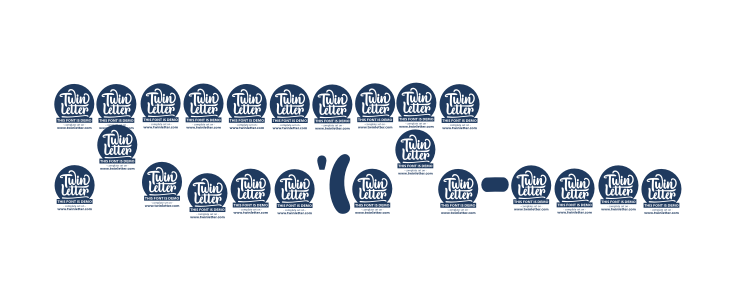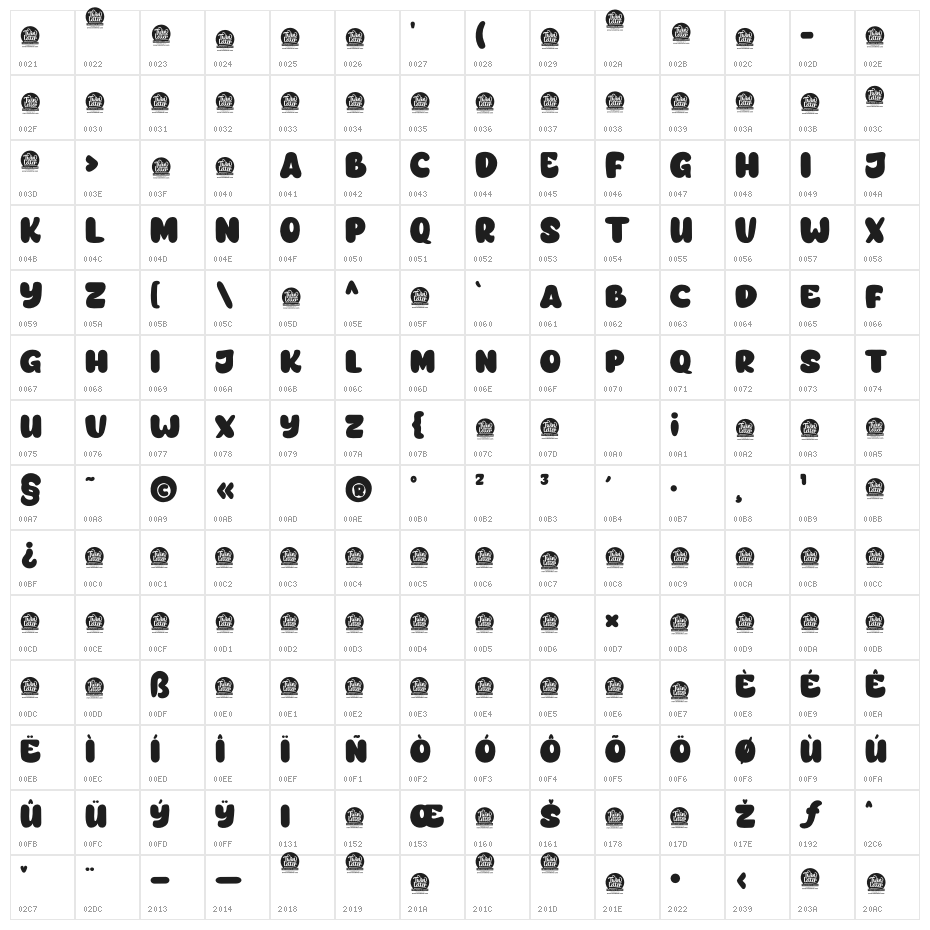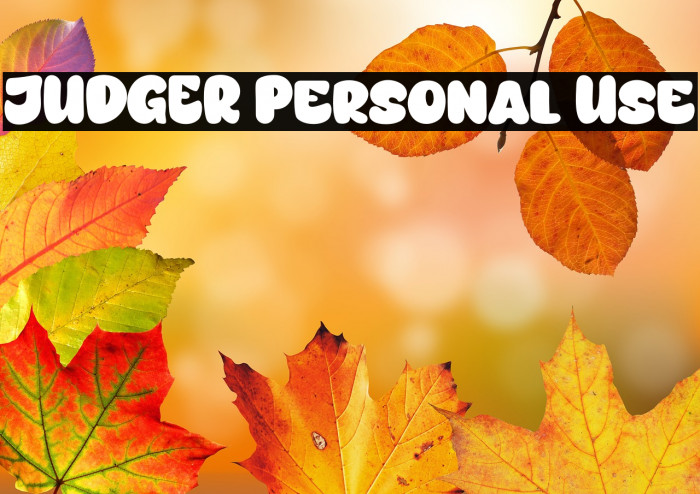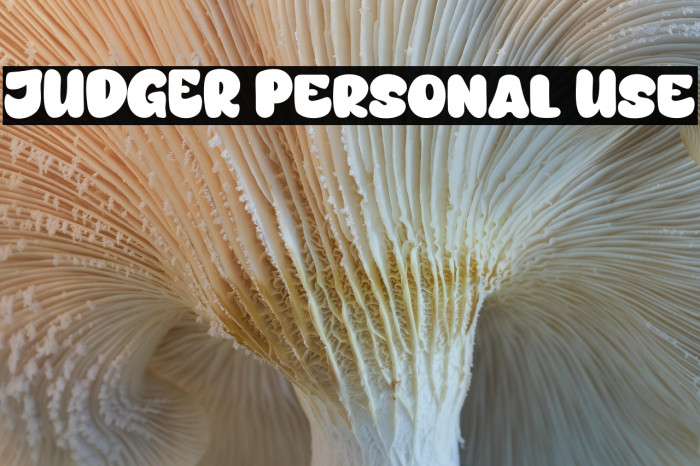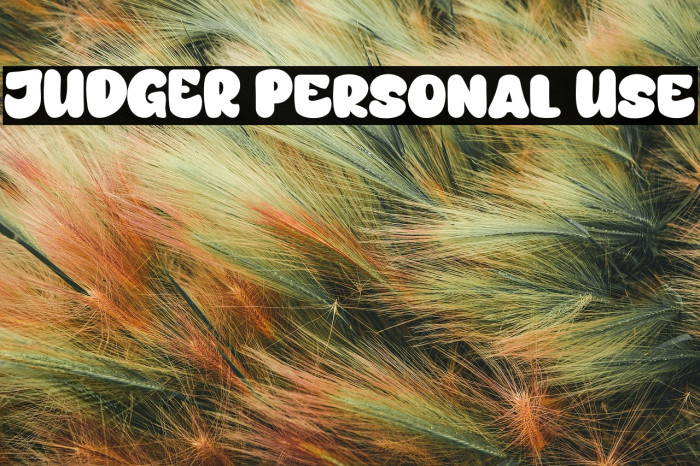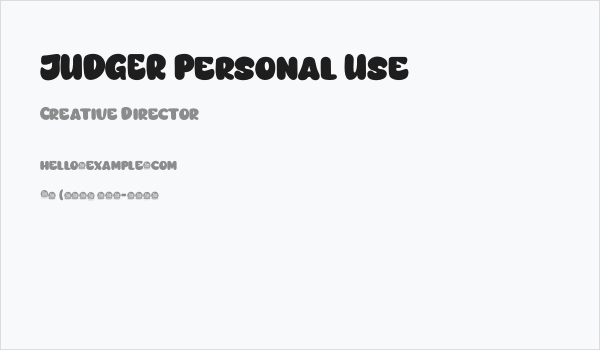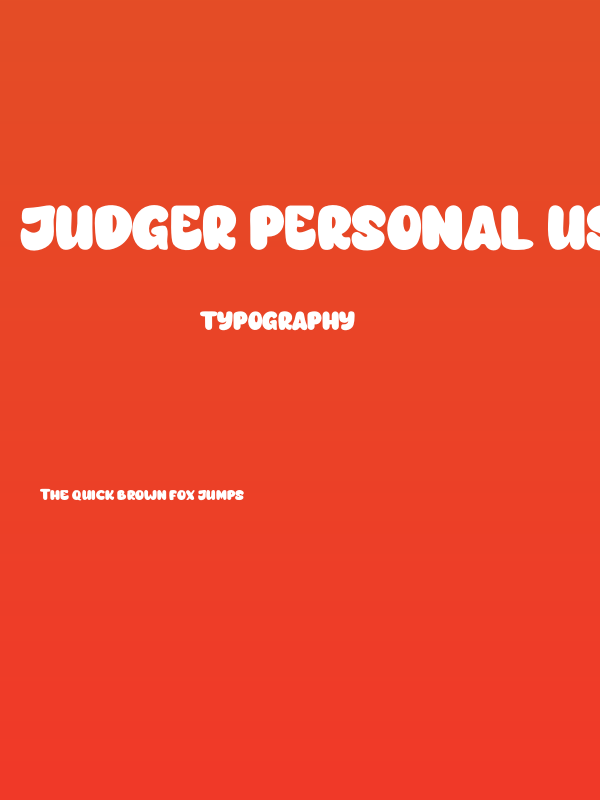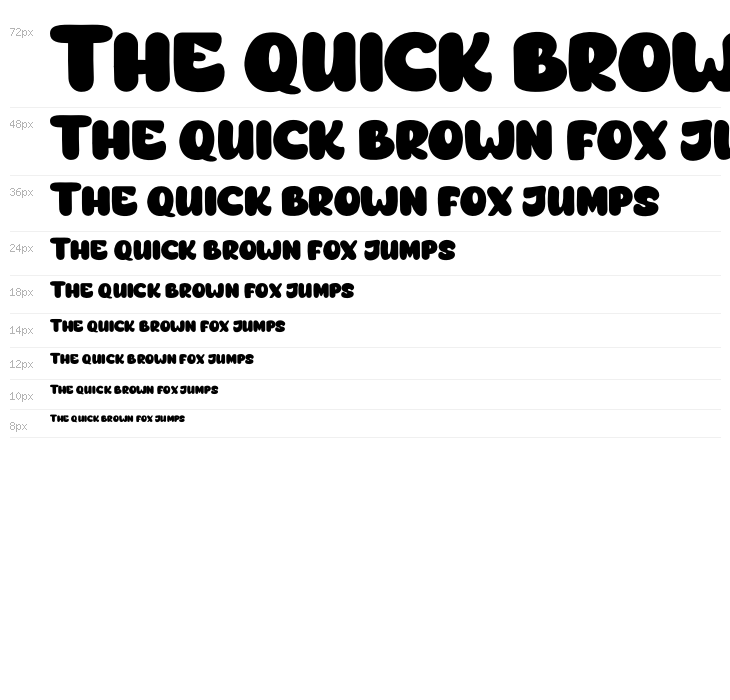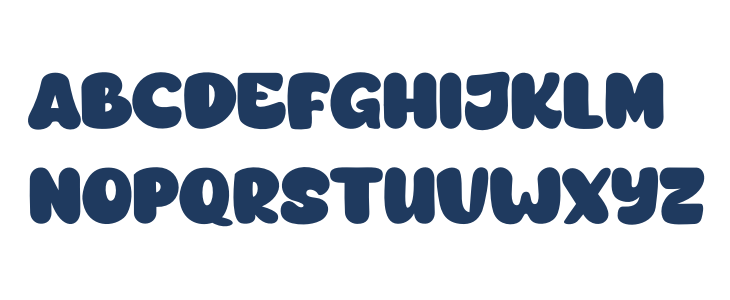
JUDGER Personal Use Font
JUDGER Personal Use Description
This font features a bold and playful design with rounded edges and a bubbly appearance. The characters are thick and uniform, creating a sense of fun and whimsy. The uppercase and lowercase letters maintain a consistent style, with a slight emphasis on curves and smooth transitions between strokes. The numbers and special characters follow the same design principles, ensuring a cohesive look across all elements. The overall aesthetic is friendly and approachable, making it suitable for projects that require a touch of personality and charm.